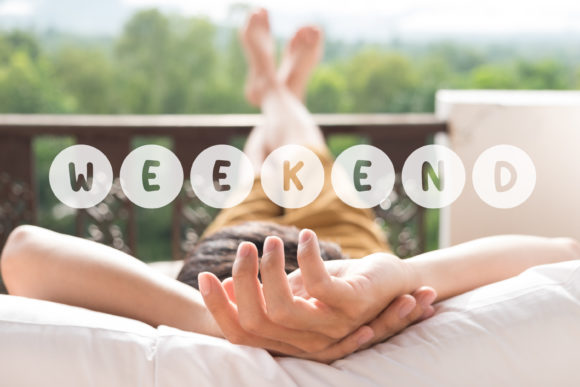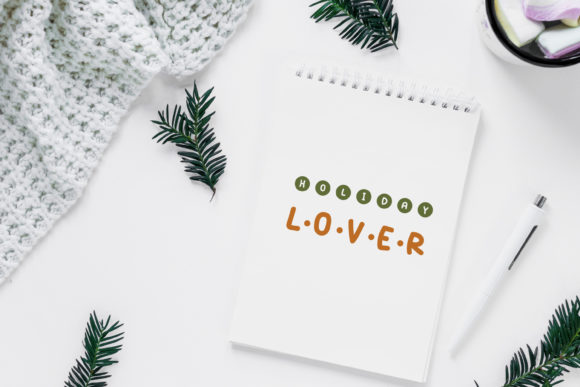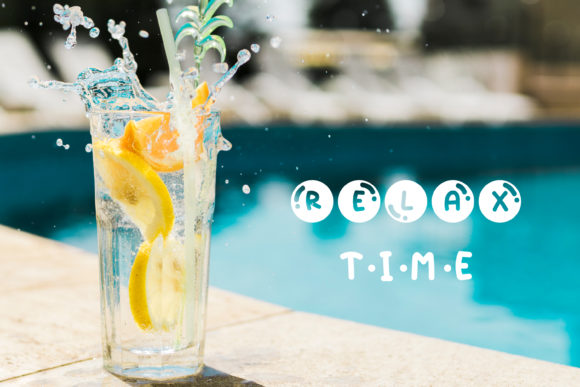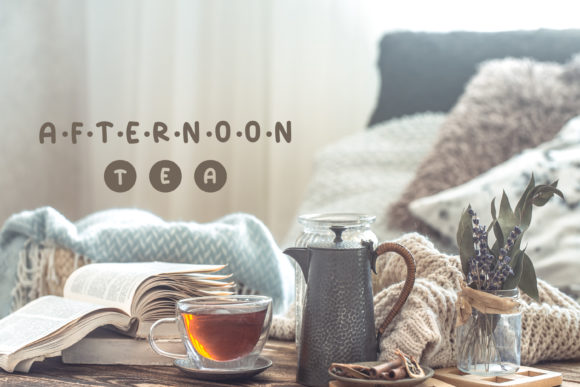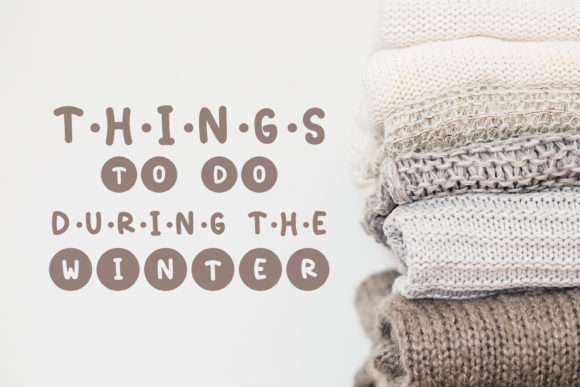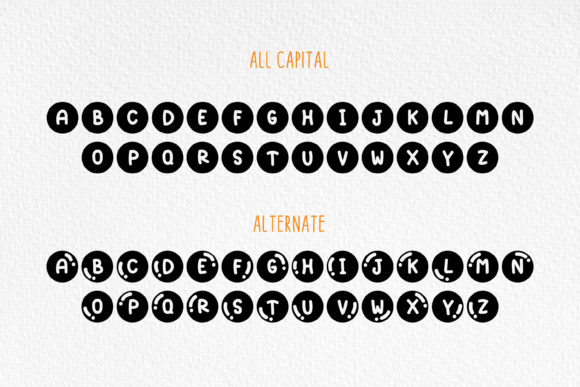
Christmas is Coming Font: The Perfect Addition to Your Holiday Designs
As the holiday season approaches, designers and crafters are on the lookout for the perfect fonts to add a touch of festive cheer to their creations. If you’re looking for a font that embodies the spirit of Christmas, look no further than the Christmas is Coming font. This simple and neat lettered display font is sure to bring a joyful touch to your holiday designs, making them stand out from the crowd.
What is Christmas is Coming Font?
Christmas is Coming font is a beautifully designed lettered display font that captures the essence of the holiday season. Its simple and clean design makes it perfect for a wide range of applications, from holiday cards and invitations to social media graphics and website headers. The font’s neat and elegant design ensures that it will complement any design, making it a versatile addition to your font collection.
Key Features of Christmas is Coming Font
- Simple and Neat Design: The Christmas is Coming font boasts a simple and neat design that makes it perfect for use in a variety of applications.
- Lettered Display Font: This font is specifically designed as a display font, making it perfect for headlines, titles, and other prominent text elements.
- Festive and Joyful: The Christmas is Coming font is designed to evoke the spirit of the holiday season, making it perfect for use in Christmas cards, invitations, and other holiday-themed designs.
- Easy to Read: The font’s clean design ensures that it is easy to read, even at smaller sizes.
Why Choose Christmas is Coming Font?
There are many fonts to choose from, but Christmas is Coming font stands out from the rest. Here are just a few reasons why:
- Unique and Festive: The Christmas is Coming font is a unique and festive addition to any design, making it perfect for holiday-themed projects.
- Versatile: This font can be used in a wide range of applications, from digital designs to print materials.
- High-Quality Design: The Christmas is Coming font is designed with high-quality and attention to detail, ensuring that it will look great in any design.
How to Use Christmas is Coming Font in Your Designs
Using the Christmas is Coming font in your designs is easy. Here are a few ideas to get you started:
- Holiday Cards and Invitations: Use the Christmas is Coming font to add a festive touch to your holiday cards and invitations.
- Social Media Graphics: Add the Christmas is Coming font to your social media graphics to make them stand out and evoke the spirit of the holiday season.
- Website Headers: Use the Christmas is Coming font in your website headers to add a festive touch to your website.
- Digital and Print Materials: The Christmas is Coming font can be used in a wide range of digital and print materials, including brochures, flyers, and posters.
Tips and Tricks for Using Christmas is Coming Font
Here are a few tips and tricks to keep in mind when using the Christmas is Coming font:
- Pair with Other Fonts: The Christmas is Coming font pairs well with other fonts, so don’t be afraid to experiment with different combinations.
- Use in Combination with Images: The Christmas is Coming font looks great in combination with images, so consider using it in conjunction with holiday-themed images.
- Experiment with Colors: The Christmas is Coming font looks great in a variety of colors, so don’t be afraid to experiment with different color schemes.
| Author | Pila Studio |
The Christmas is Coming font is a simple and neat lettered display font that is sure to add a joyful touch to your holiday designs. Its festive and elegant design makes it perfect for use in a wide range of applications, from holiday cards and invitations to social media graphics and website headers. With its versatility, high-quality design, and ease of use, the Christmas is Coming font is a must-have for designers and crafters looking to add a touch of festive cheer to their creations.